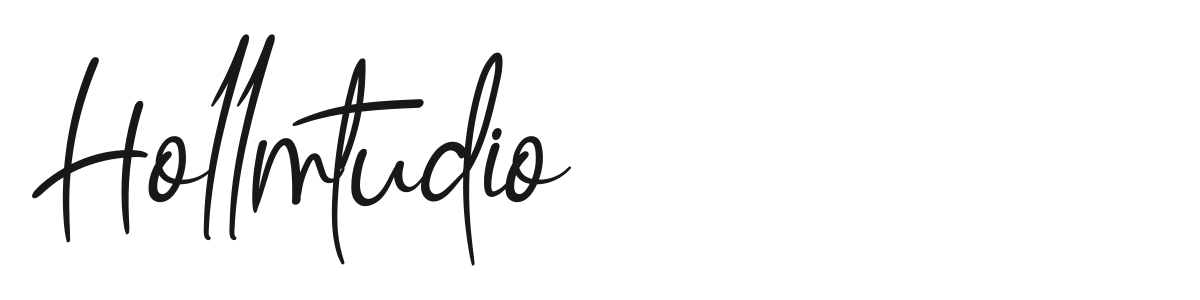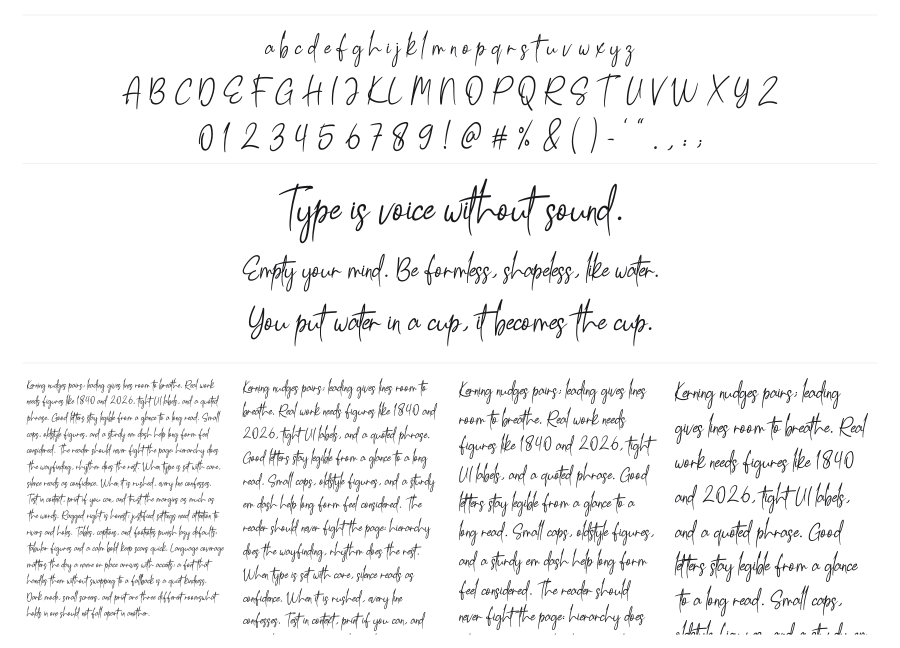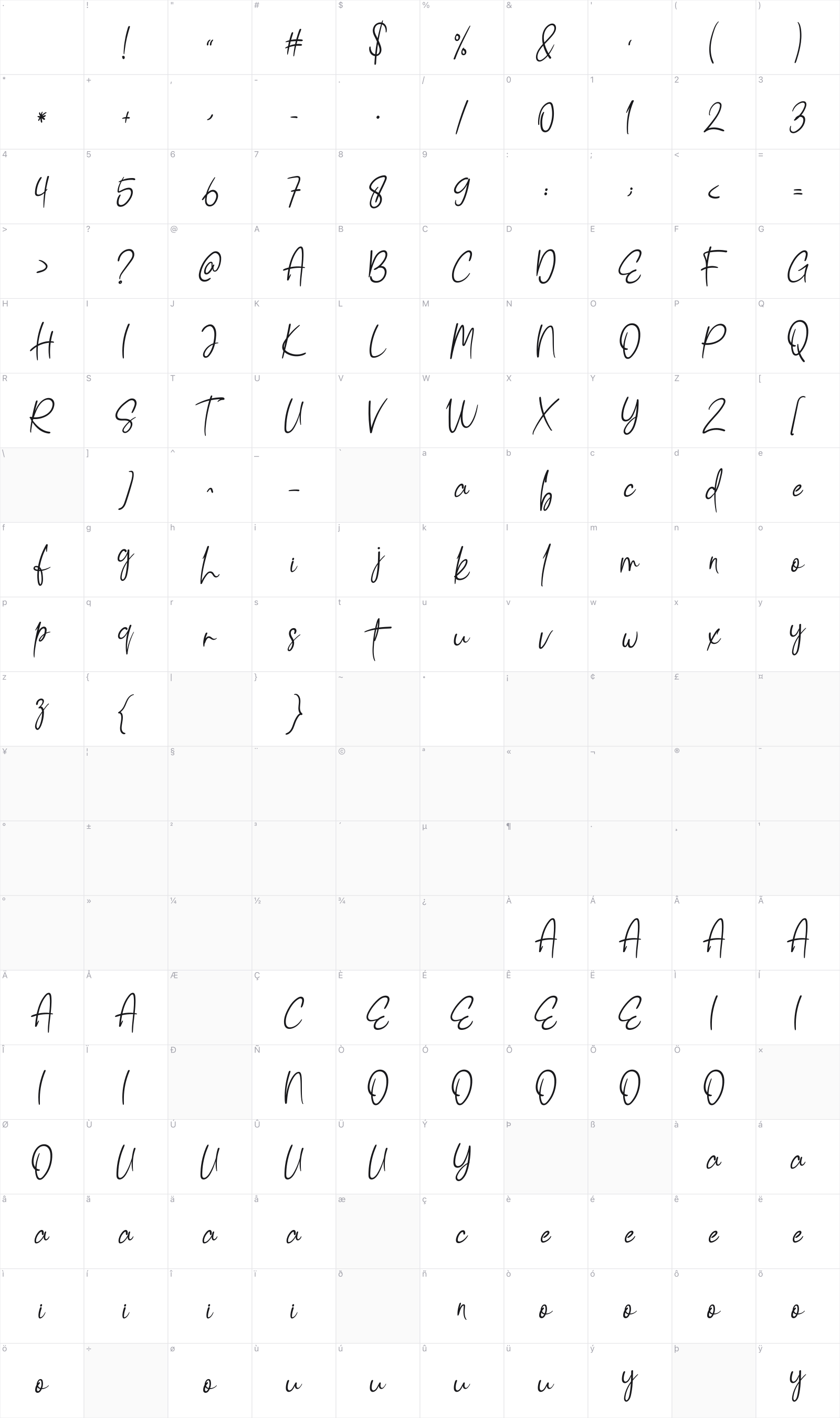
Hollmtudio
by Gado Gado
Hollmtudio is a casual handwritten script with thin flowing strokes and a naturally loose, signature-like rhythm. Long swooping descenders and fluid connections give it an effortless, pen-on-paper feel. It works well for branding, packaging, and any context calling for a relaxed, personal touch.